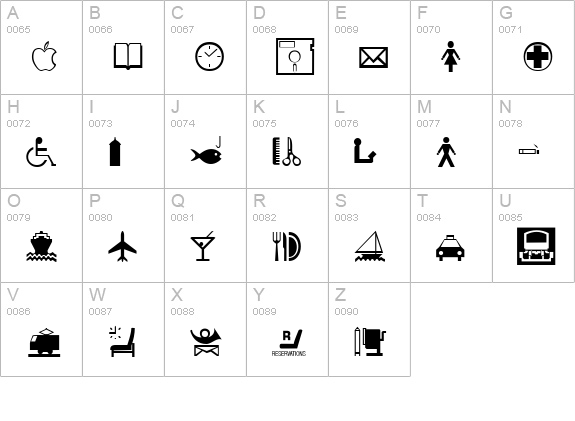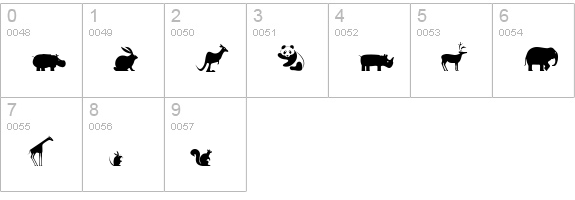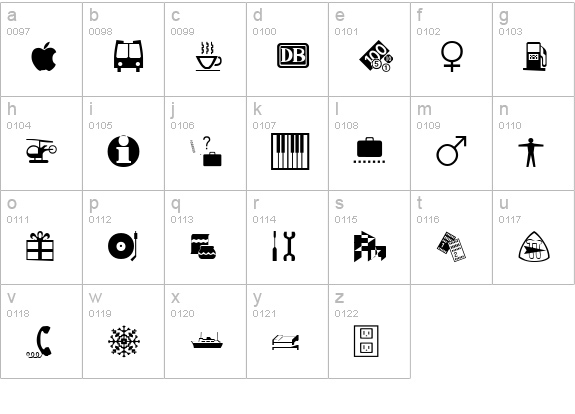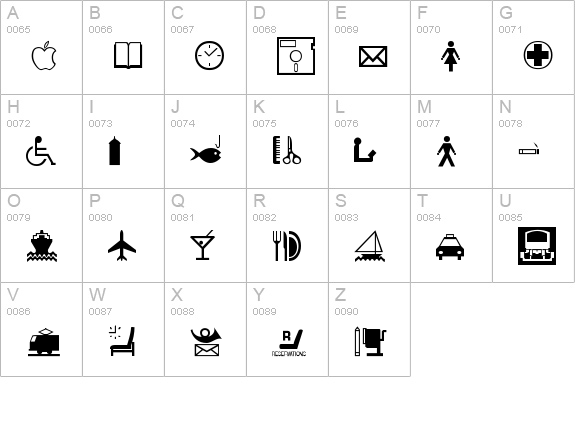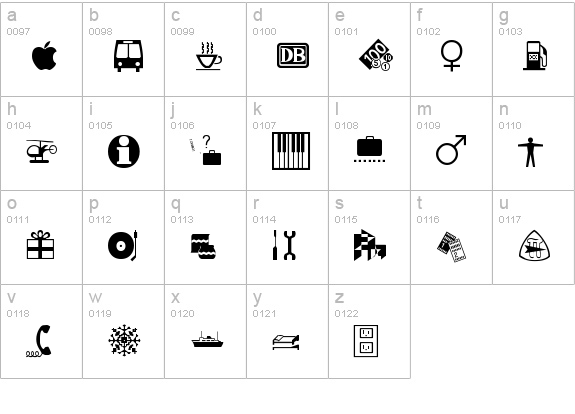
Inter Dingbats FC Font Details
Inter Dingbats FC font is a unique and playful typeface that will add a touch of fun and creativity to your designs. This font features a collection of symbols and icons that can be used to enhance your projects, whether it be in print or digital media. With its wide range of symbols, Inter Dingbats FC font offers endless possibilities for creating eye-catching visuals. From arrows and stars to animals and food, this font has it all. Whether you're designing a logo, creating a poster, or adding some flair to your website, Inter Dingbats FC font has the perfect symbol for every occasion. Not only does Inter Dingbats FC font offer a diverse selection of symbols, but it is also incredibly easy to use. Simply type the corresponding letter or number on your keyboard, and the symbol will appear in your document. No need to search through endless lists or menus, Inter Dingbats FC font makes finding the right symbol a breeze. Best of all, Inter Dingbats FC font is completely free to download. You can easily get your hands on this fantastic font at FontsMarket.com. Whether you're a professional designer or just someone looking to add some creative flair to your projects, Inter Dingbats FC font is a must-have in your font collection. So why wait? Download Inter Dingbats FC font today and start adding a playful and unique touch to your designs. With its wide range of symbols and its easy-to-use nature, this font is sure to become your go-to choice for all your design needs. Don't miss out on the opportunity to get this amazing font for free at FontsMarket.com.